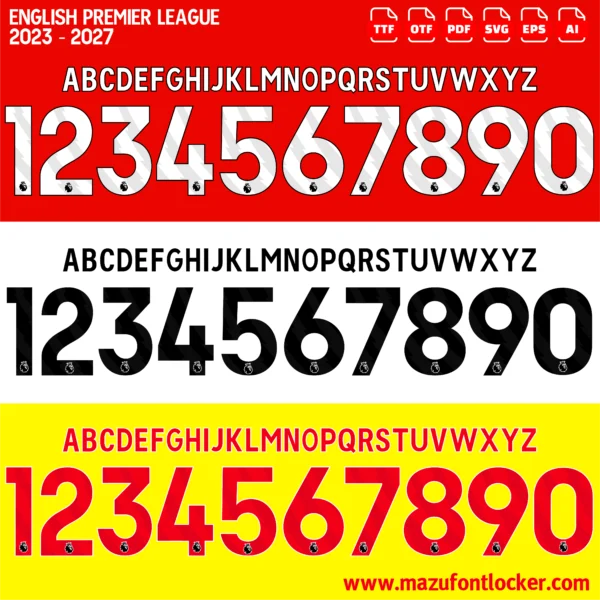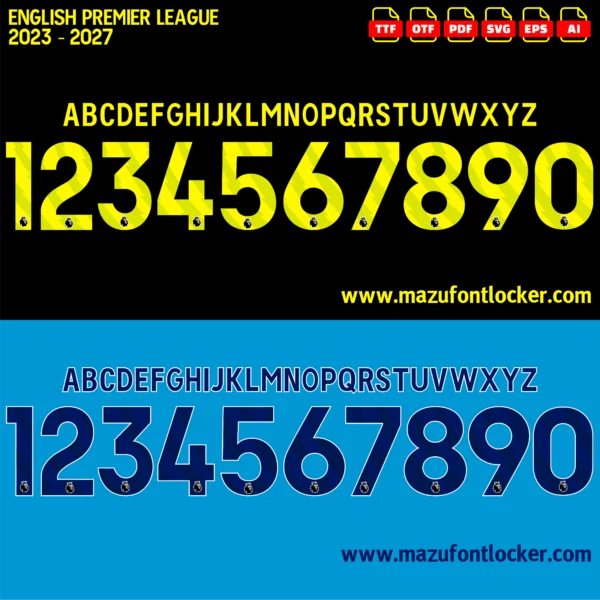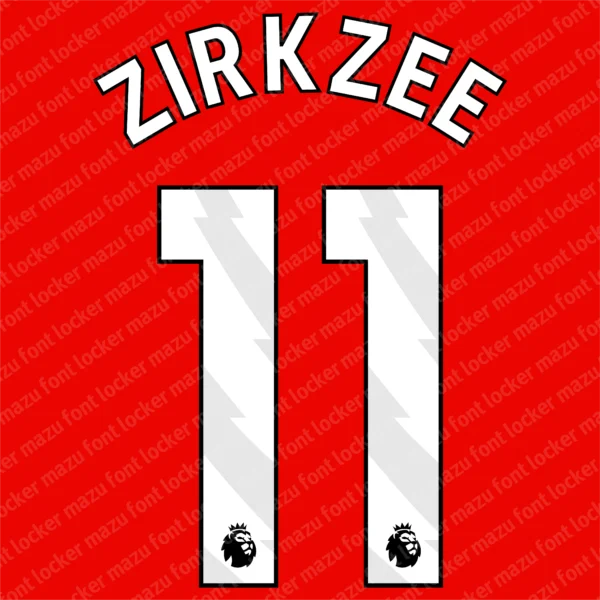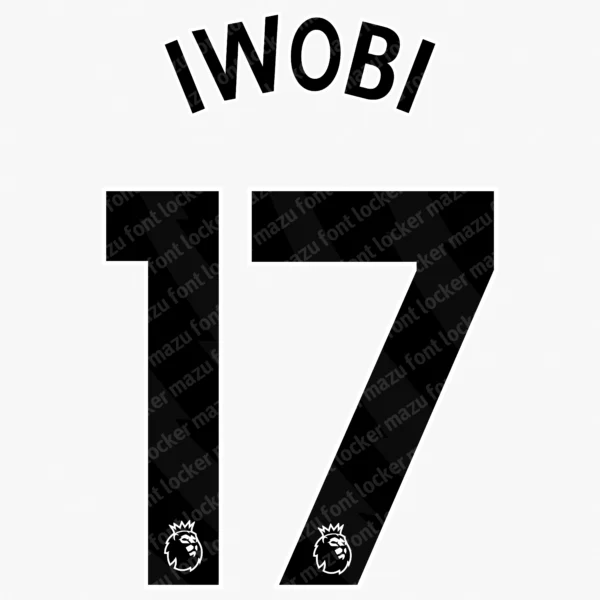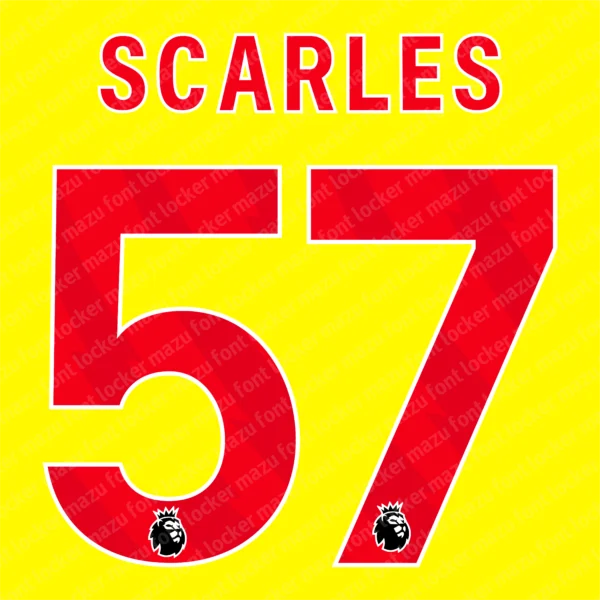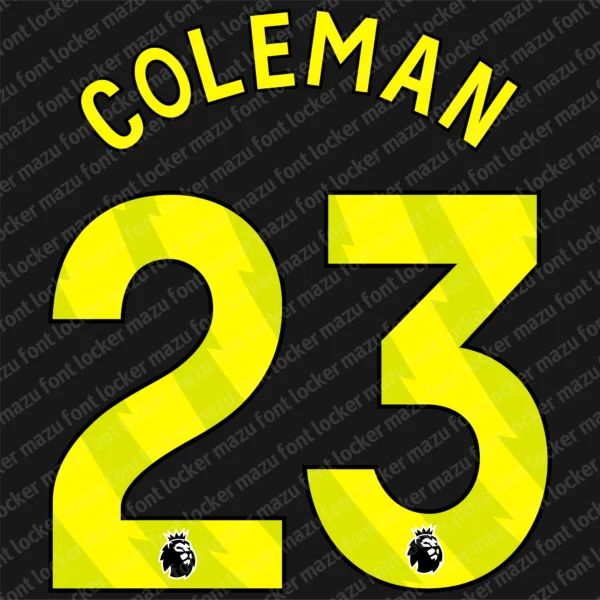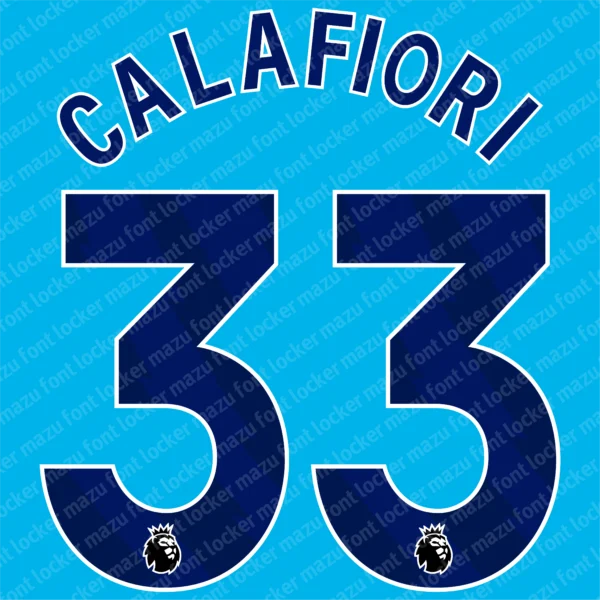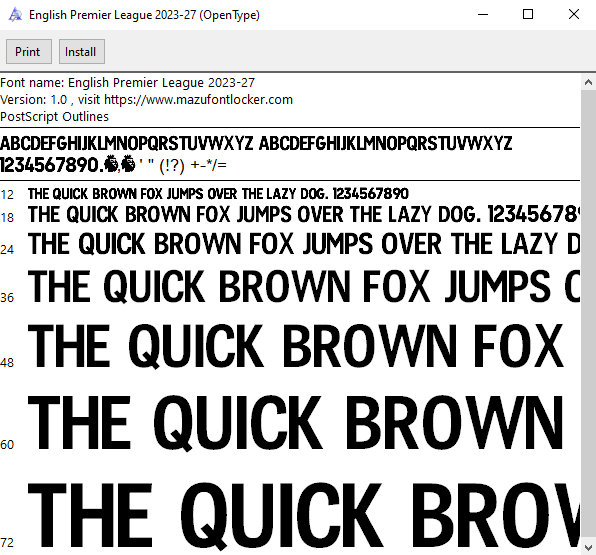
Premier League 2023-2027 Font Vector – Stunning Modern Elite English Football Masterpiece
This font delivers the refined, bold lettering and enlarged numbers used across every club jersey since 2023 — the official typeface of the modern game, perfect for professional kit mockups, dynamic football graphics, premium sports branding, and high-end design projects.
Premier League 2023-2027 Font Vector – Modern Bold Matchday Typeface
The Premier League 2023-2027 Font Vector is a premium typeface that accurately recreates the distinctive match lettering associated with the English Premier League during the 2023-2027 football seasons. This high-quality vector font kit captures the bold, clean, and instantly recognizable typography that perfectly complements the league’s modern branding and visual identity of the current era.
Designed for professional designers, football enthusiasts, jersey collectors, and passionate Premier League supporters, the Premier League 2023-2027 Font Vector delivers exceptional authenticity for creating realistic jersey mockups, football merchandise, social media graphics, match posters, squad designs, and custom fan artwork. Every character has been carefully recreated to reflect the powerful and precise visual style of English football’s most competitive period.
Why Choose Premier League 2023-2027 Font Vector
This font stands out thanks to its precise vector construction and authentic league-inspired styling. Every letter and numeral has been meticulously recreated to match the distinctive football lettering aesthetic associated with the Premier League during the 2023-2027 seasons and its domestic and European campaigns.
Whether you’re producing professional football kit templates, custom jersey concepts, or eye-catching football content, the Premier League 2023-2027 Font Vector delivers a genuine match-ready appearance inspired by the identity of English top-flight football.
The lettering featured in the Premier League 2023-2027 Font Vector combines clean geometric lines with bold modern proportions. The result is a premium and highly readable typeface that reflects the Premier League’s proud football heritage, iconic branding, competitive spirit, and the passionate support of fans across England and around the world.
- Complete uppercase A–Z alphabet and numbers 0–9 in authentic Premier League 2023-2027 inspired style
The Premier League 2023-2027 Font Vector is an independently designed typeface package inspired by the official shirt lettering and visual identity associated with the Premier League during the 2023-2027 football seasons. It has been carefully recreated for football enthusiasts, graphic designers, collectors, jersey creators, and fans producing custom football concepts, digital artwork, and fan-made projects. Please note that this is a fan-made design resource and is not an official product of the Premier League, the FA, UEFA, or any associated organization.